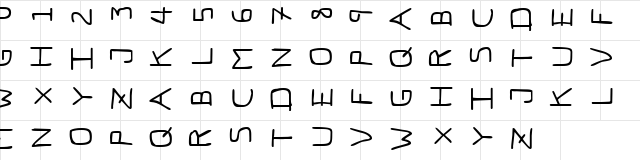
Pfvvbf7s erybadfont7 sideways
Pfvvbf7s is a composed and adaptable typeface that performs quietly and consistently across a wide range of design contexts.